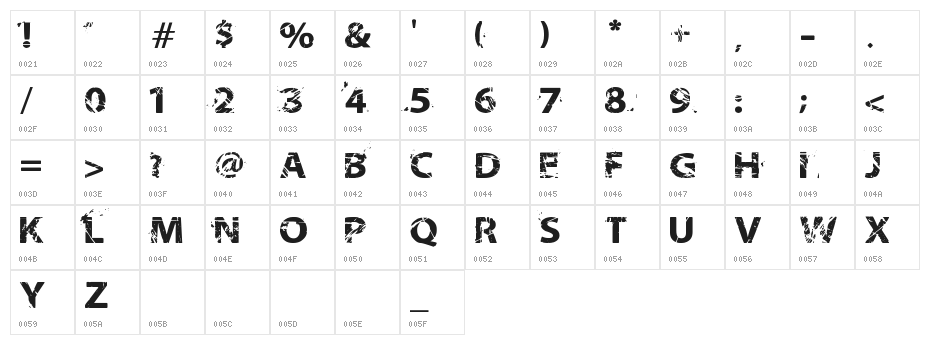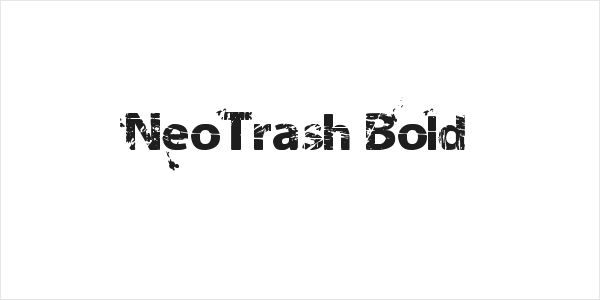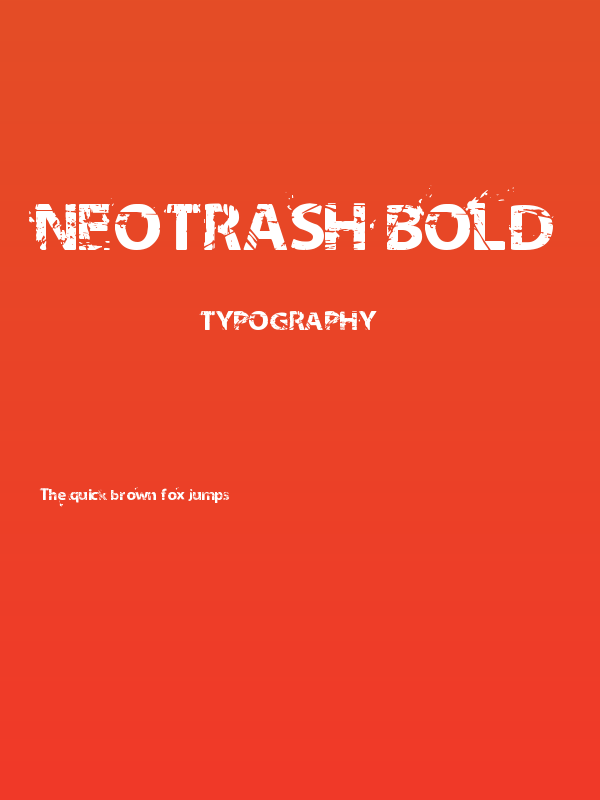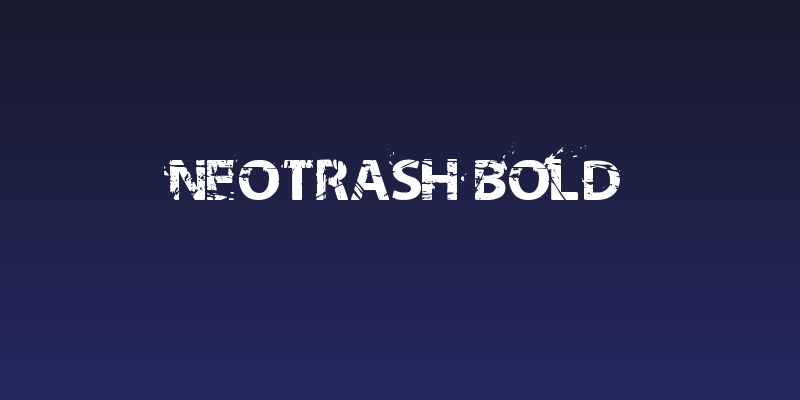
NeoTrash Bold Font
NeoTrash Bold Description
This font features a bold and distressed style, characterized by its rough, grunge-like texture that gives it a worn and edgy appearance. The letters are bold and impactful, with irregular edges and a weathered look that suggests a sense of urban decay or vintage wear. The uppercase and lowercase letters maintain a consistent style, with numbers and special characters following the same distressed pattern. This font is ideal for projects that require a gritty, rebellious, or alternative aesthetic, making it perfect for music posters, album covers, or edgy branding materials.
Overall StyleGrunge, Urban, Edgy
Proposed ProjectsIdeal for music posters, album covers, edgy branding, and urban-themed designs.